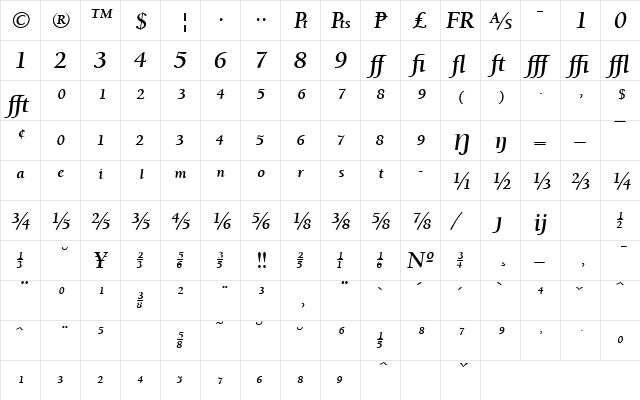
UniversityOldExp Bold Italic Font Preview
Design Context for UniversityOldExp Typeface
UniversityOldExp takes a measured approach to typography — its balanced proportions and neutral character make it a reliable workhorse for both digital and print work. Its italic angle brings a sense of urgency and motion to the letterforms. Its bold stroke weight gives it real presence on the page.
Pro Tip: Try UniversityOldExp for annotation and caption copy alongside an upright companion — the contrast in angle creates a dynamic but ordered typographic system.